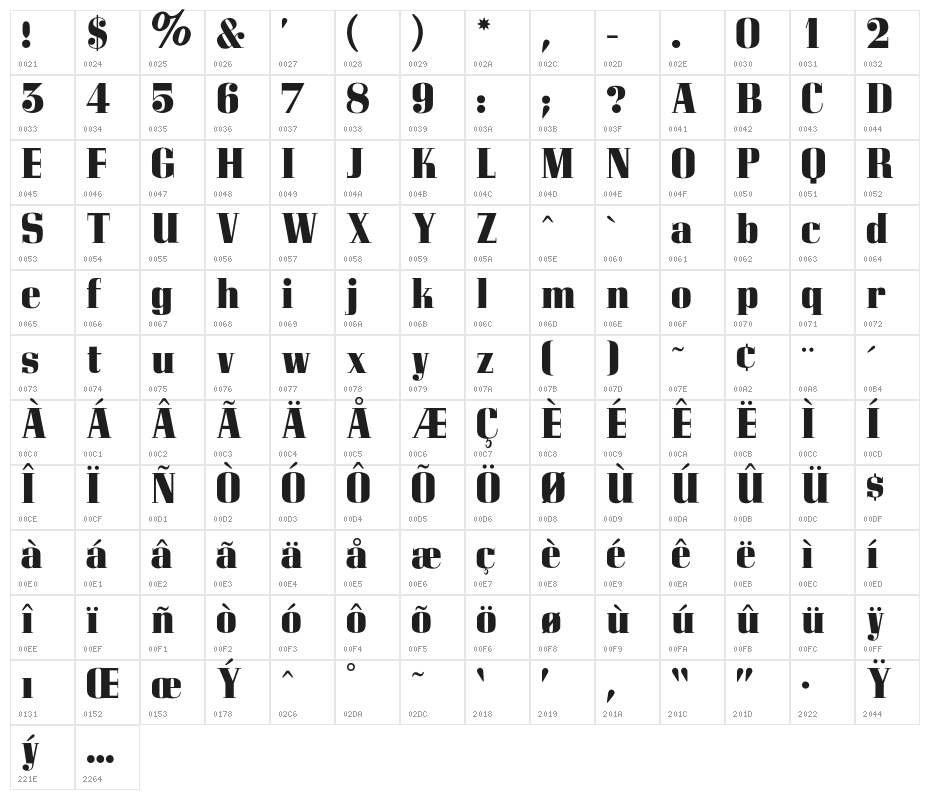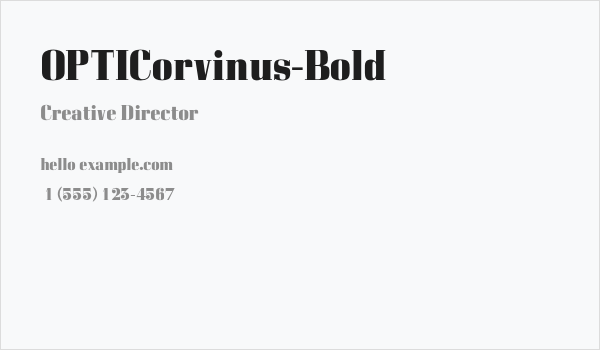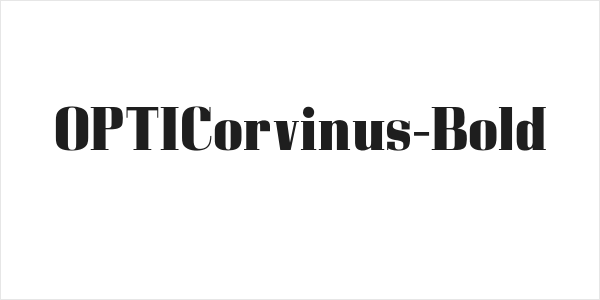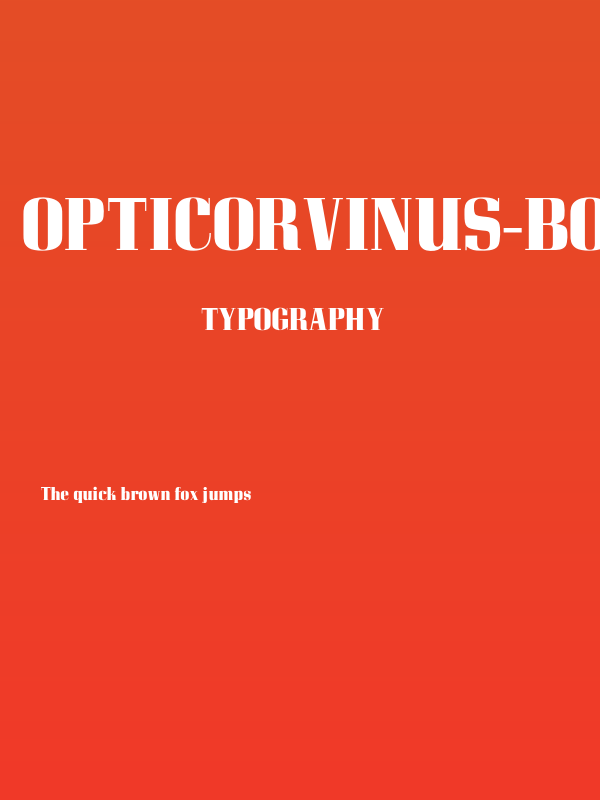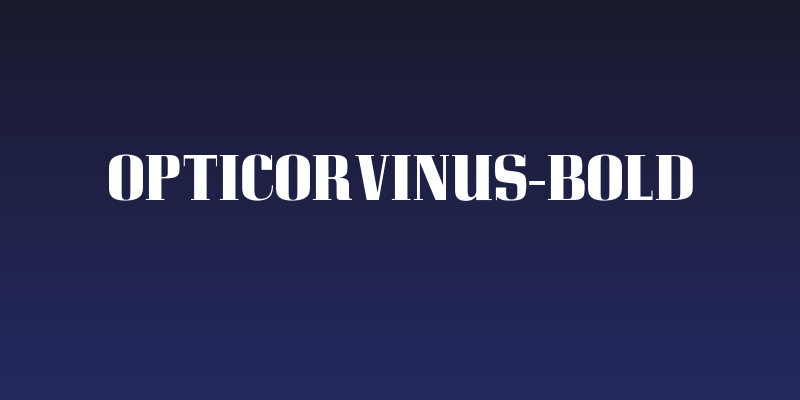
OPTICorvinus-Bold Font
OPTICorvinus-Bold Description
This font features a bold and striking design with thick, prominent strokes that give it a commanding presence. The characters exhibit a strong vertical emphasis, with serifs that are sharp and pronounced, adding to its authoritative look. The uppercase letters are particularly bold, making them ideal for headlines or titles. The lowercase letters maintain a consistent weight, ensuring readability while still conveying strength. Numbers and special characters are equally robust, with a uniform thickness that complements the overall style. This font's design is both modern and classic, making it versatile for various applications.
| Proposed Projects | Ideal for use in headlines, posters, branding, and editorial design where a strong, impactful presence is needed. |